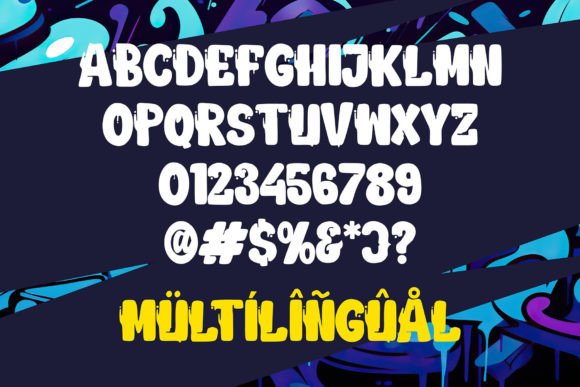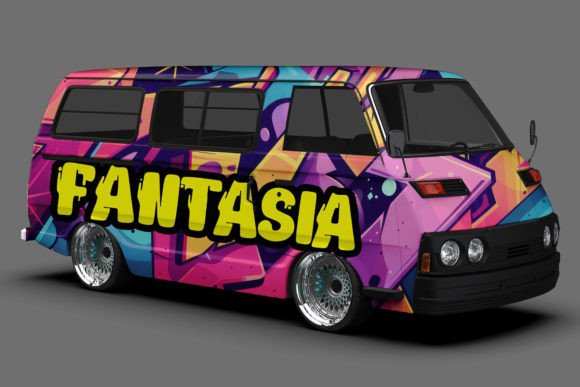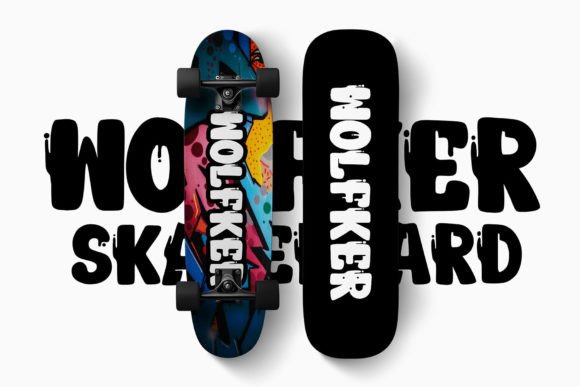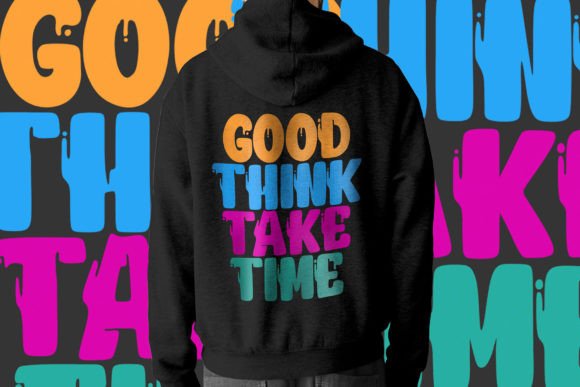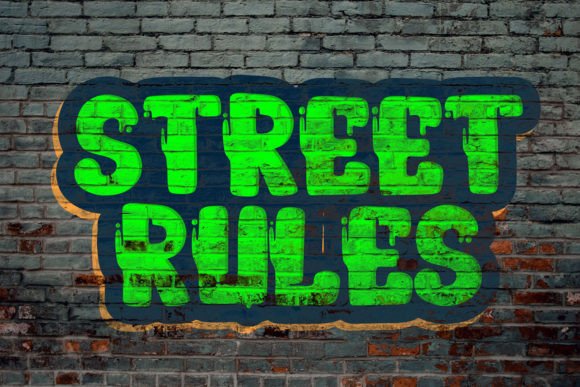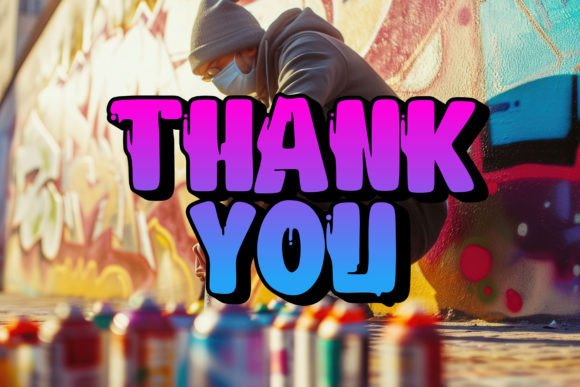
Unleashing the Raw Energy of Street Art: Introducing Blow Grafo Font
There’s nothing quite like the rush of creative energy that comes with the discovery of a new font. Imagine stumbling upon a font that embodies the raw essence of urban culture, a true reflection of the vibrant spirit of street art. For designers, this is the ultimate game-changer – a font that speaks directly to the soul of the city, where every line, every curve, and every character is imbued with an edgy, city-vibe aesthetic.
Enter the Blow Grafo Font, a graffiti-inspired display font that’s designed to elevate your projects to new heights. With its authentic flavor of street art and urban aesthetics, this versatile font is the perfect medium to channel the raw energy of graffiti into your works. Whether you’re creating street art, posters, or clothing lines, the Blow Grafo Font is a powerful tool to amplify the visual appeal and unforgettable persona of your designs.
- Unique Characteristics: The Blow Grafo Font is known for its bold and graffiti-inspired design, making it perfect for creating eye-catching and edgy text.
- Font Style: The font style is a sans-serif font with a bold and condensed feel, making it ideal for headlines, titles, and other display text.
Blow Grafo Font Review
Overall, I’m impressed with the unique style and aesthetic of Blow Grafo Font. ✨ The font’s bold, geometric shapes and vibrant colors make it perfect for creating eye-catching headlines and titles. It’s also great for use in digital products, such as mobile apps and video games, where a modern and edgy look is desired.
Some of the font’s strengths include:
- Highly customizable: Blow Grafo Font offers a wide range of style options, including different line widths, colors, and gradients.
- Excellent legibility: The font is clear and easy to read, even at small sizes.
- Perfect for creative industries: The font’s unique style makes it ideal for use in creative fields, such as graphic design, advertising, and fashion.
- Not suitable for body text: While the font is great for headlines and titles, it may not be the best choice for large blocks of body text due to its bold, geometric style.
Overall, I’d give Blow Grafo Font 4 out of 5 stars. It’s a great choice for designers looking for a unique and modern font, but may not be the best fit for all projects.
Blow Grafo Font is a versatile font that can be used for various purposes, including:
- Typography-based designs
- Editorial and publishing content
Alternatives to Blow Grafo Font
Blow Grafo Font is a bold, modern sans-serif font, but it may not be the best fit for every design project. Here are some alternatives that can be used in different situations:
Montserrat is a geometric sans-serif font that is similar to Blow Grafo Font in its bold and modern aesthetic. However, it has a more geometric feel and is often used in urban and industrial designs. It’s a great choice for designs that need a strong, modern look.